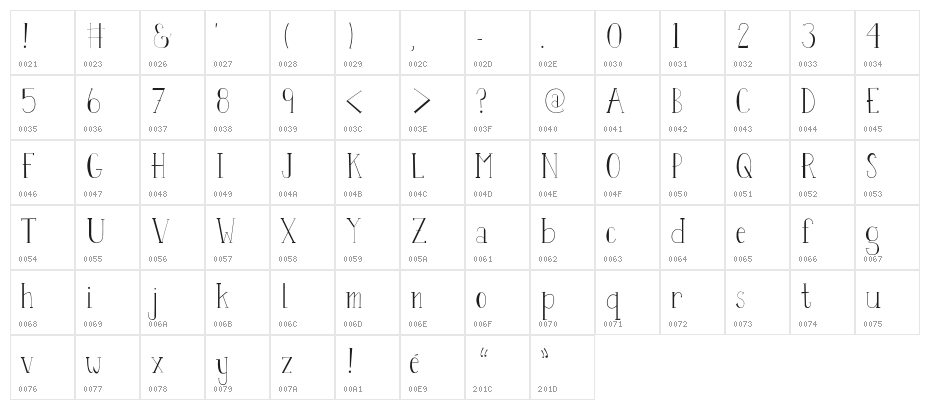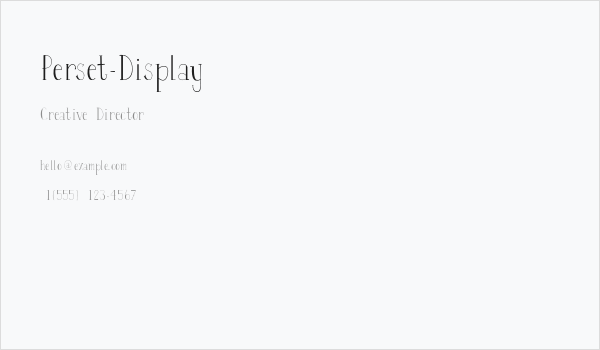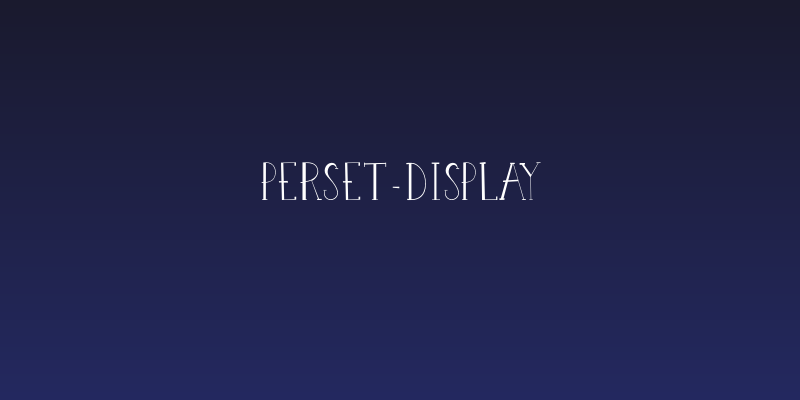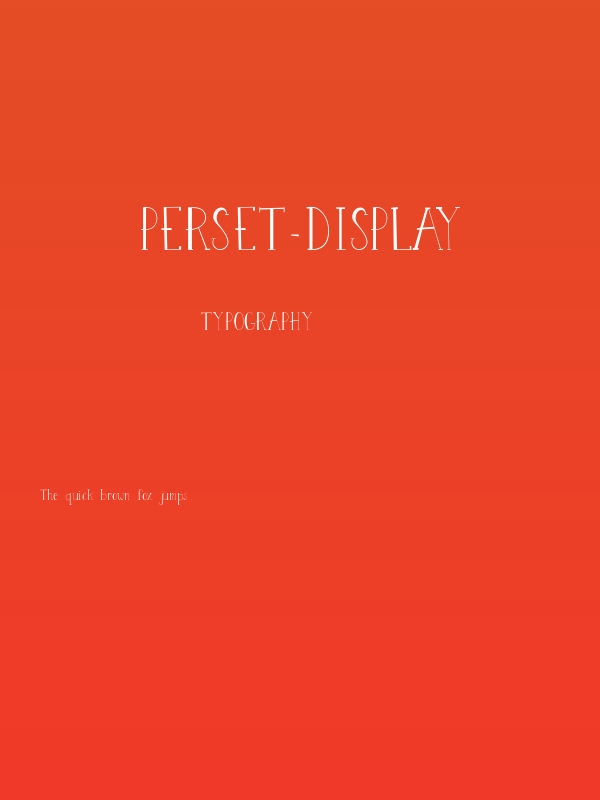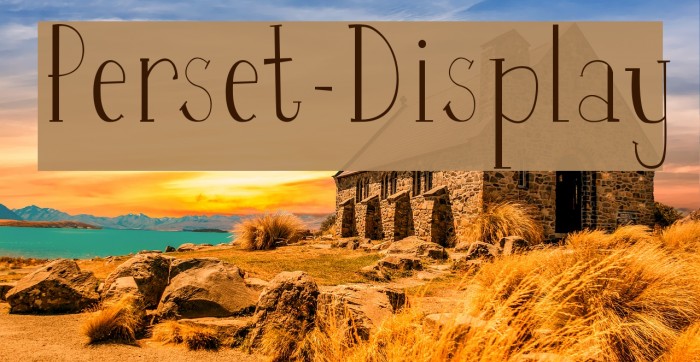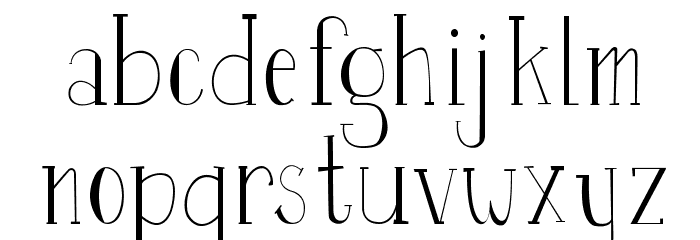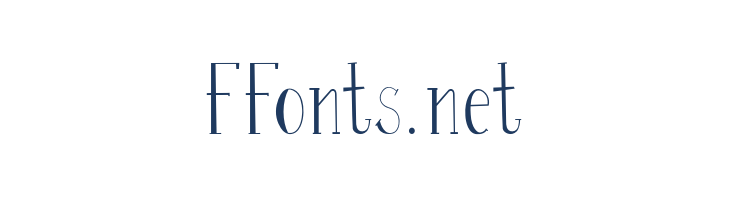
Perset-Display Font
Perset-Display Description
This font exhibits a unique blend of modern and classic styles, characterized by its tall, slender letterforms with a slight flair at the ends. The uppercase letters are particularly striking, with a mix of straight and curved lines that create a dynamic visual rhythm. The lowercase letters maintain this elegance with a more subdued presence, offering a harmonious balance. Numbers are clean and easily readable, while special characters add a touch of sophistication. The overall design is both artistic and functional, making it suitable for a variety of creative applications.
| Overall Style | Modern, Elegant |
| Use Case | Headlines, Logos, Editorial Design |
| Proposed Projects | Ideal for branding, editorial design, fashion magazines, and luxury product packaging. |